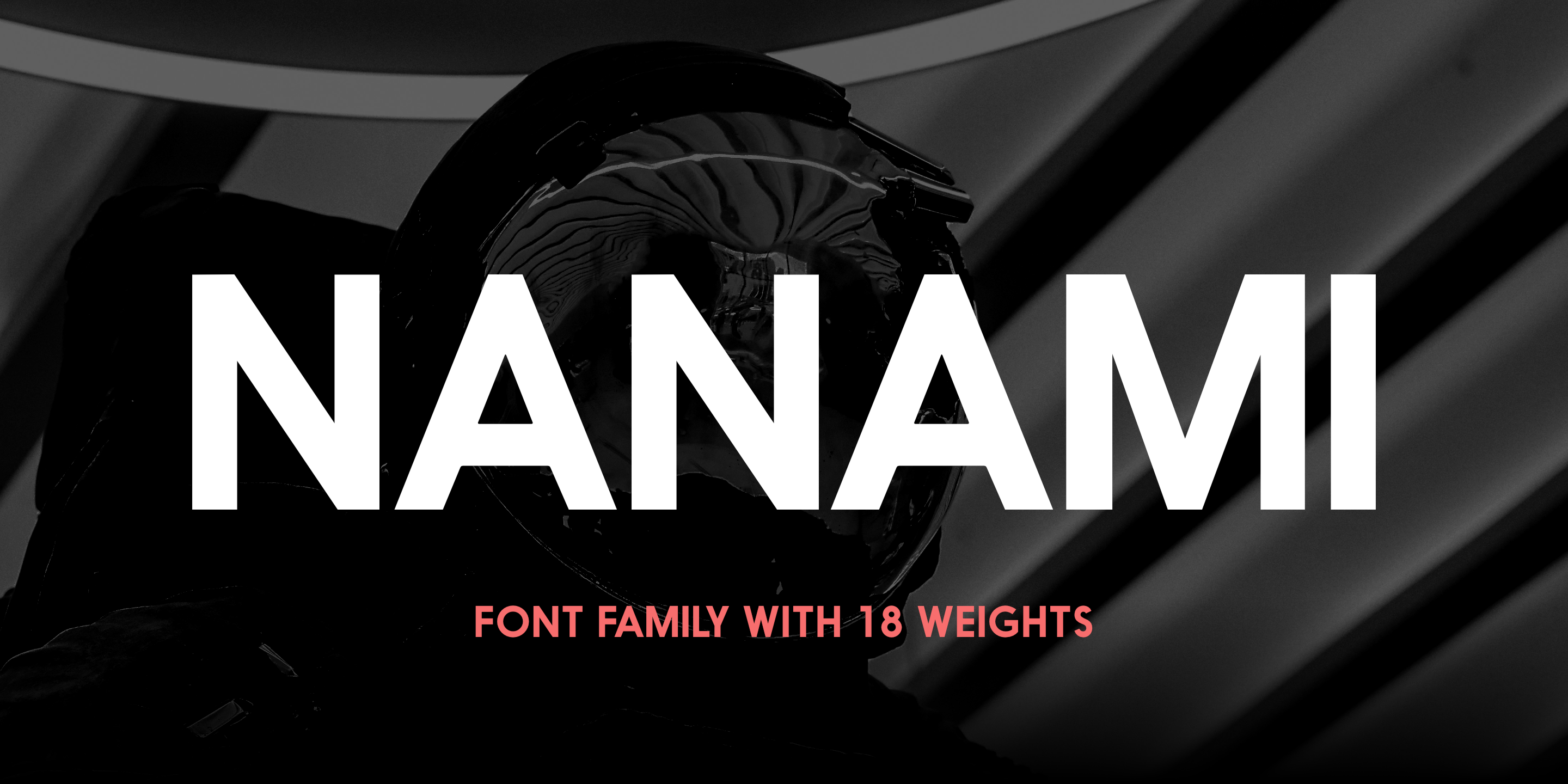
Nanami Font is perfect for Japanese-inspired restaurant branding, zen spa signage, minimalist fashion labels, serene meditation app interfaces, delicate origami studio logos, peaceful tea ceremony invitations, elegant Asian cultural events, and tranquil wellness center identities. This graceful typeface excels in Japanese-aesthetic applications, minimalist design projects, and any creative work requiring peaceful sophistication that captures the essence of Japanese elegance and serene simplicity through harmonious visual balance.
What makes Nanami Font exciting is its extraordinary ability to embody Japanese aesthetic principles and zen-like tranquility through delicately crafted letterforms that whisper with gentle grace and peaceful sophistication. The font features harmoniously designed characters with Japanese-inspired curves and serene proportions that evoke feelings of inner peace and cultural elegance, making it ideal for brands seeking to establish connections with mindful audiences and communicate through peaceful visual language. Its zen presence ensures immediate recognition of Japanese authenticity and serene sophistication.
Nanami Font family includes multiple weights and styles: Regular, Bold, Light, Medium, Italic variations, and zen alternates with Japanese embellishments and peaceful decorative elements. Each family member maintains the distinctive serene character while offering comprehensive design options for mindful campaigns, from gentle meditative text to inspiring headlines that establish cultural authority and zen credibility through harmoniously peaceful typography.
Whether you're designing Japanese-inspired brand identities or creating serene cultural campaigns, Nanami Font Free Download provides the perfect typography solution for peaceful branding needs. This font transforms ordinary text into harmonious zen statements that communicate Japanese elegance and mindful tranquility. Japanese restaurants and wellness lifestyle brands choose this typeface for its ability to convey peaceful sophistication through delicately crafted letterforms that flow through designs with zen grace and celebrate the timeless beauty of Japanese aesthetic harmony.